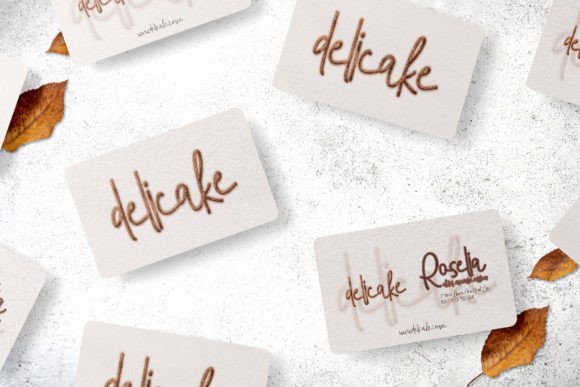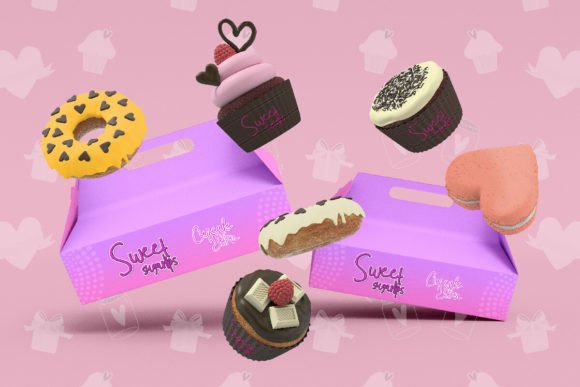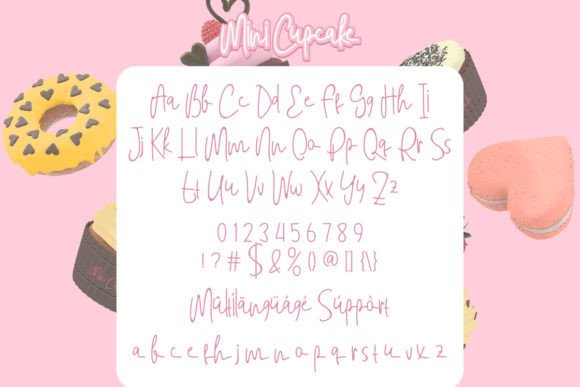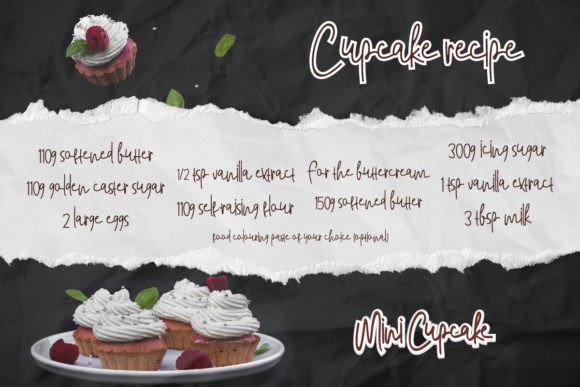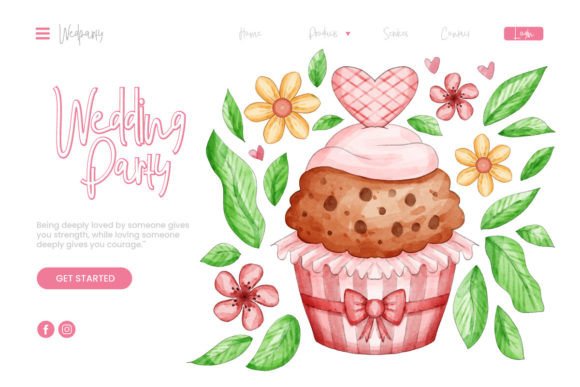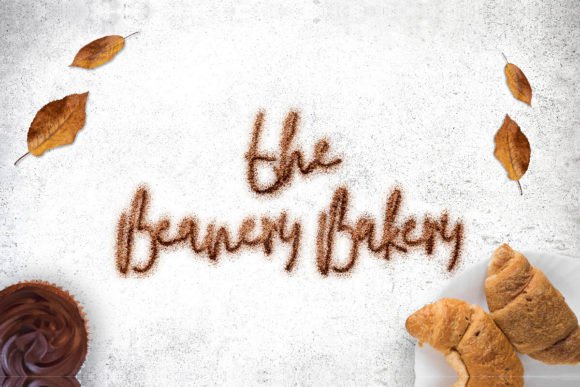
Introduction to Mini Cupcake Font
Mini Cupcake is a sweet handwriting script font inspired by cookies and sweet things.
This font is sleek and tall which has a simple semi-signature look that is still easy to read and will be suitable for many industries, such as bakery, camp, event tenant, fashion, food brand, florist, photography, restaurant, spa salon, wedding organizer, and anything that requires a girly script style .